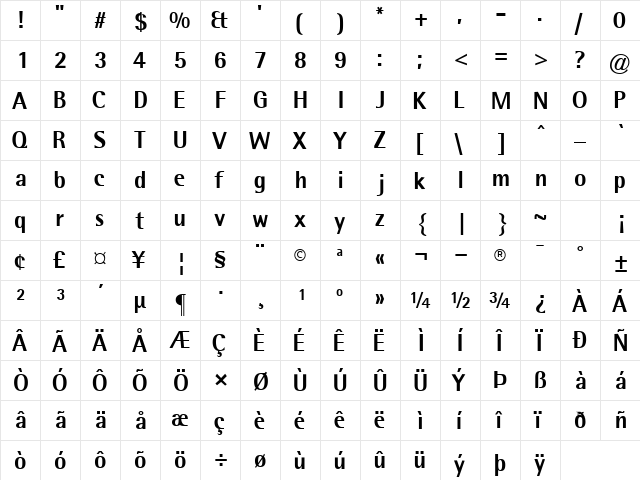
LibreSemiSans Regular
Design Context for LibreSemiSans Typeface
LibreSemiSans is a composed and adaptable typeface that performs quietly and consistently across a wide range of design contexts.